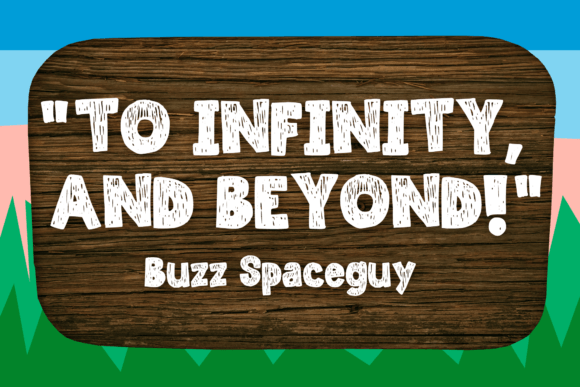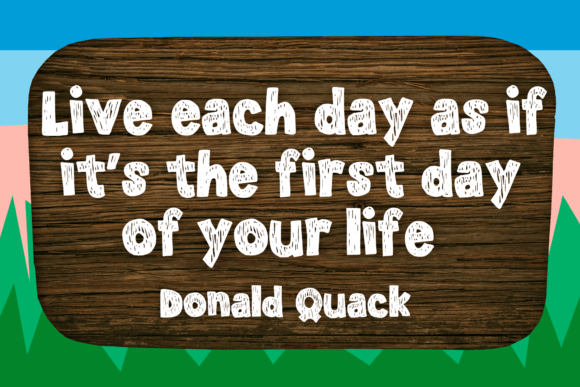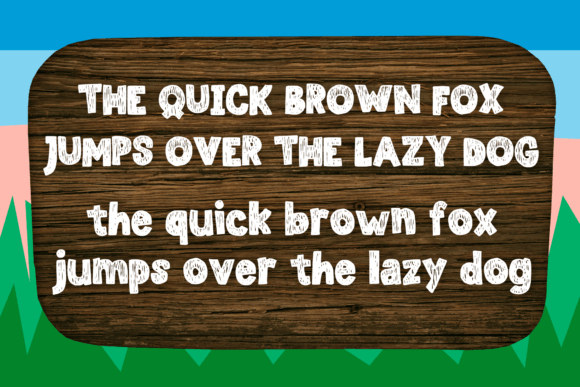
Introduction to Friendly Grunge Font
Friendly Grunge is a kid-friendly grunge font.
You can use it for anything ranging from t-shirts, for your fun kid theme needs, outbond activity support needs, greeting cards, stickers, posters, kid’s book design or anything that needs a casual touch Try it to create fabulous designs and feel the good vibes with it.
Key Features of Friendly Grunge Font
Friendly Grunge Font offers exceptional quality and versatility, making it a valuable addition to your design toolkit. Whether you’re creating for personal projects or commercial use, Friendly Grunge Font delivers professional results.